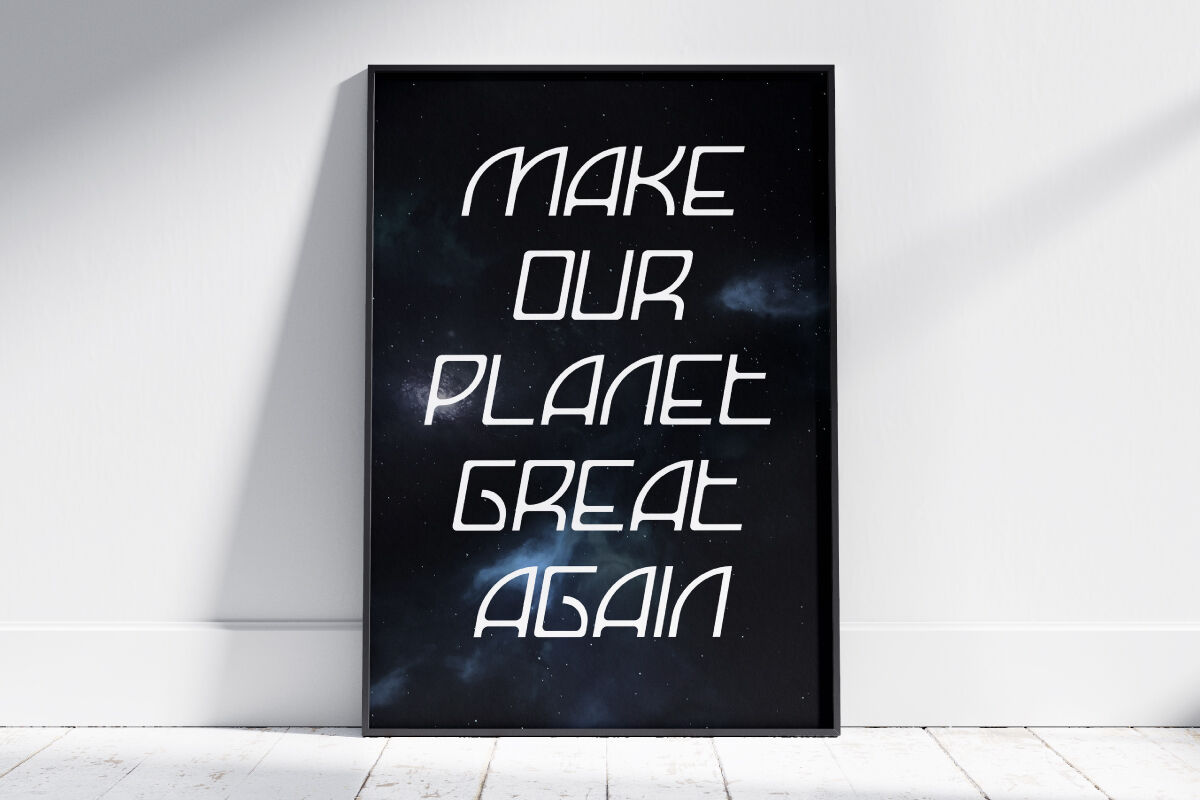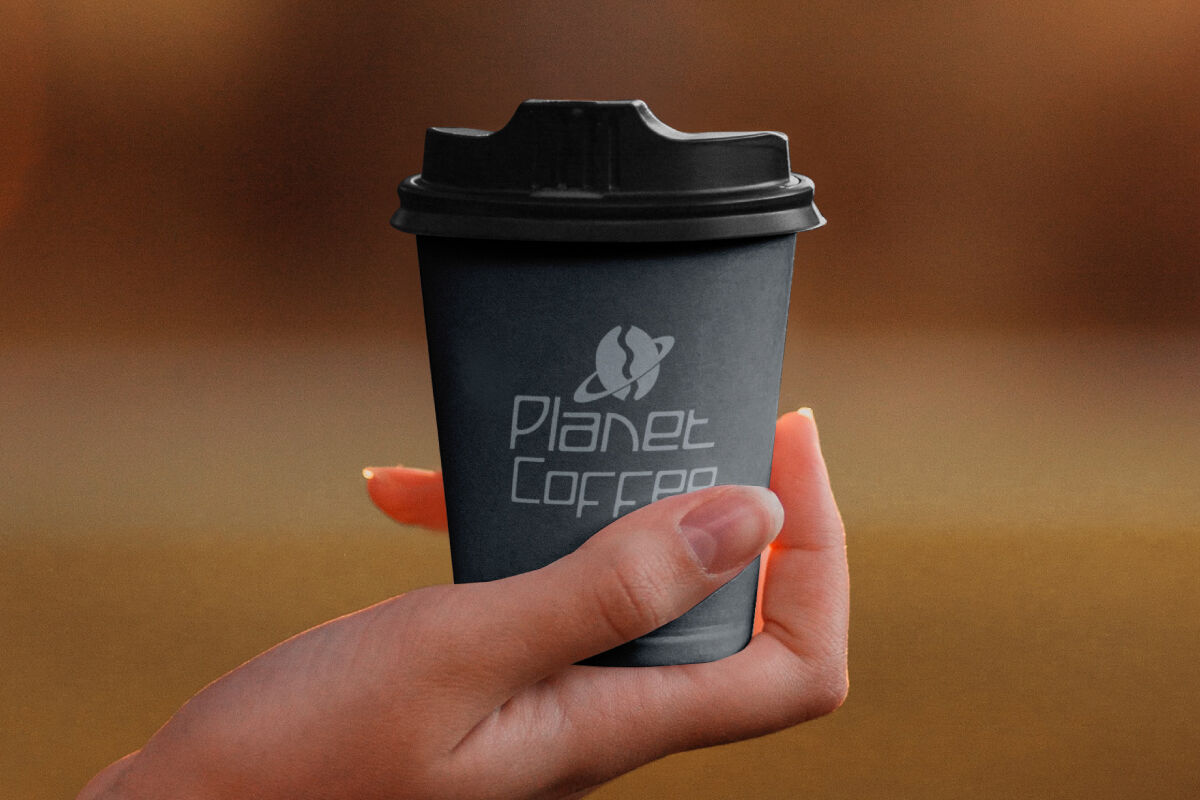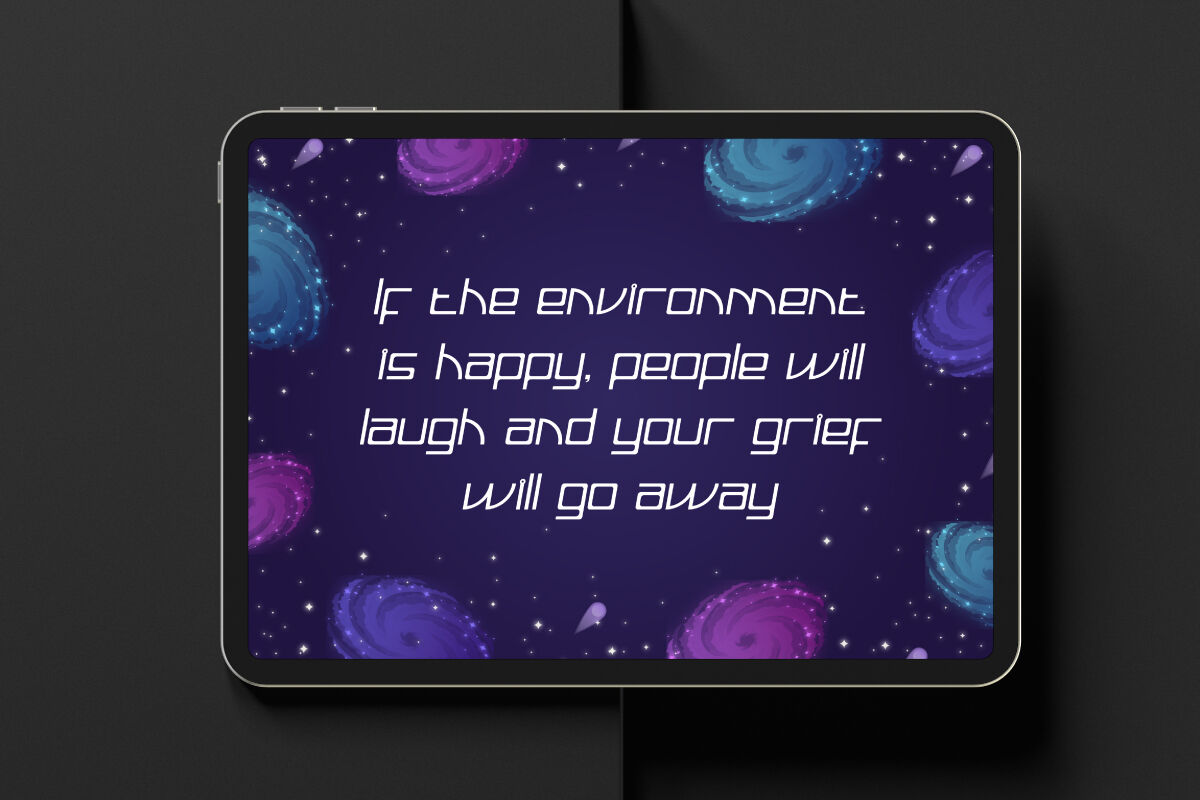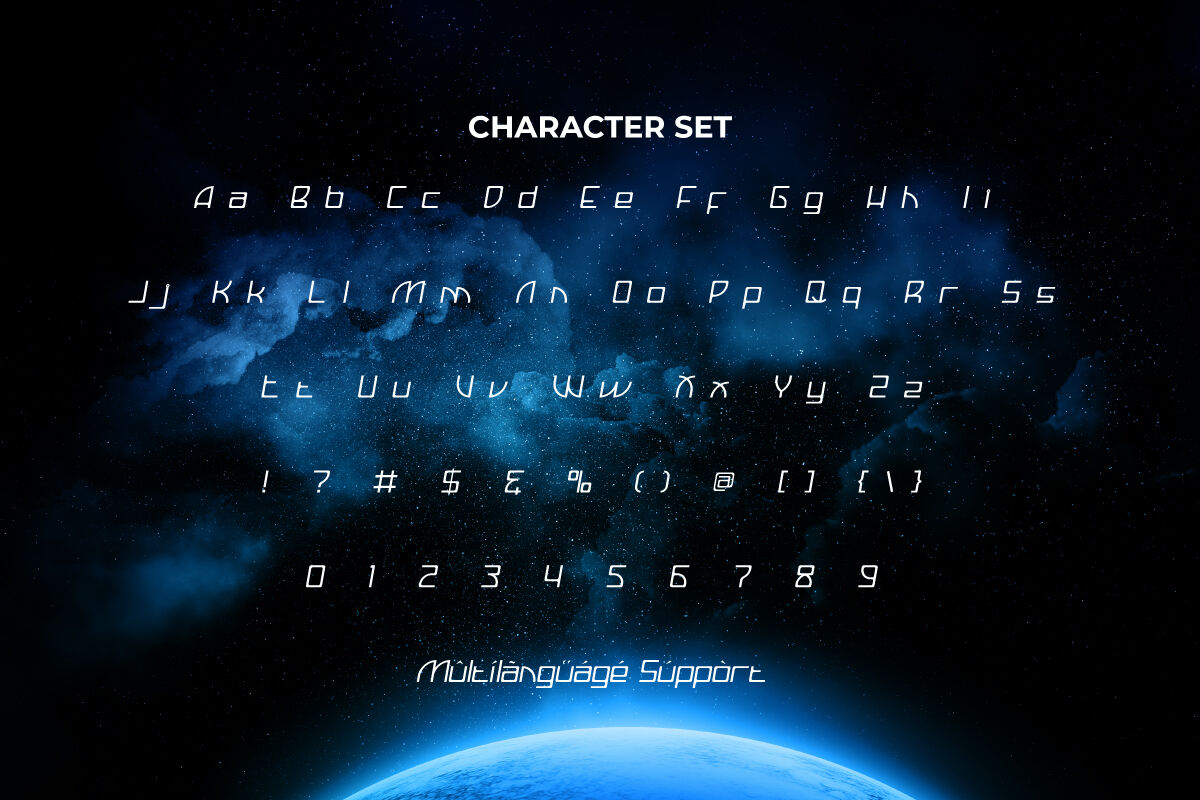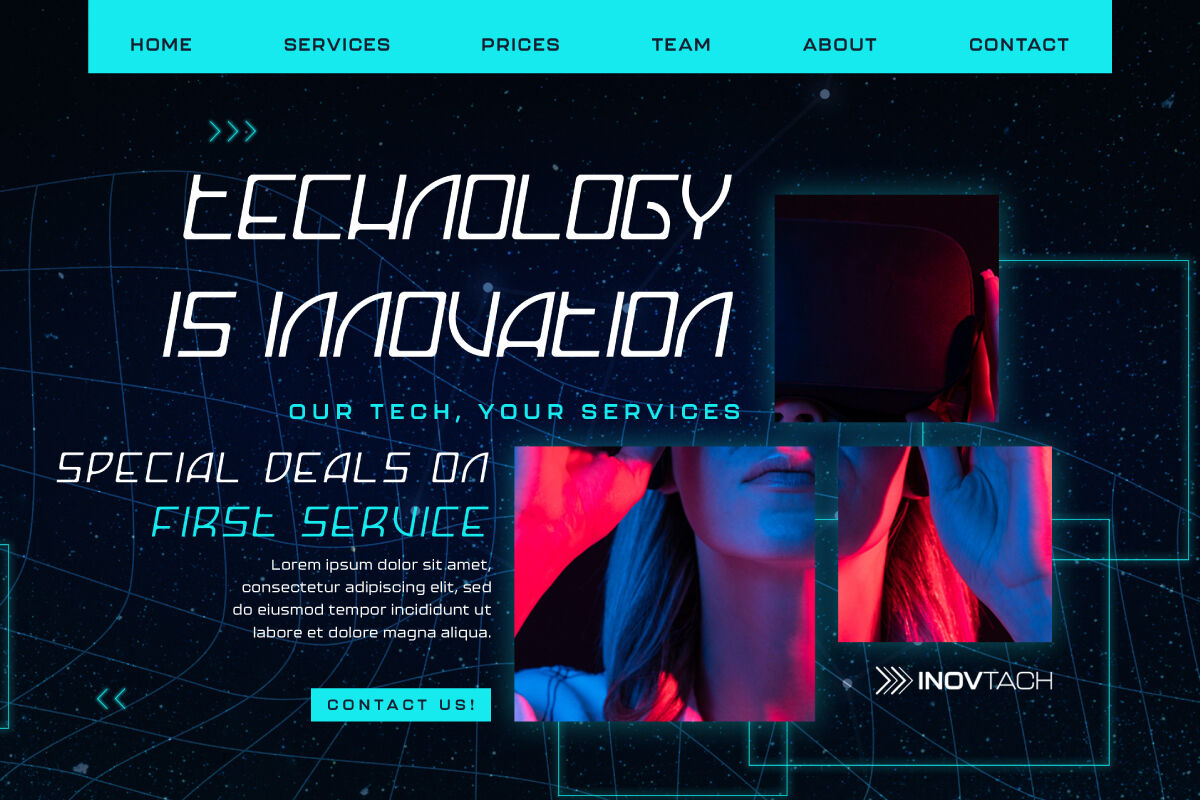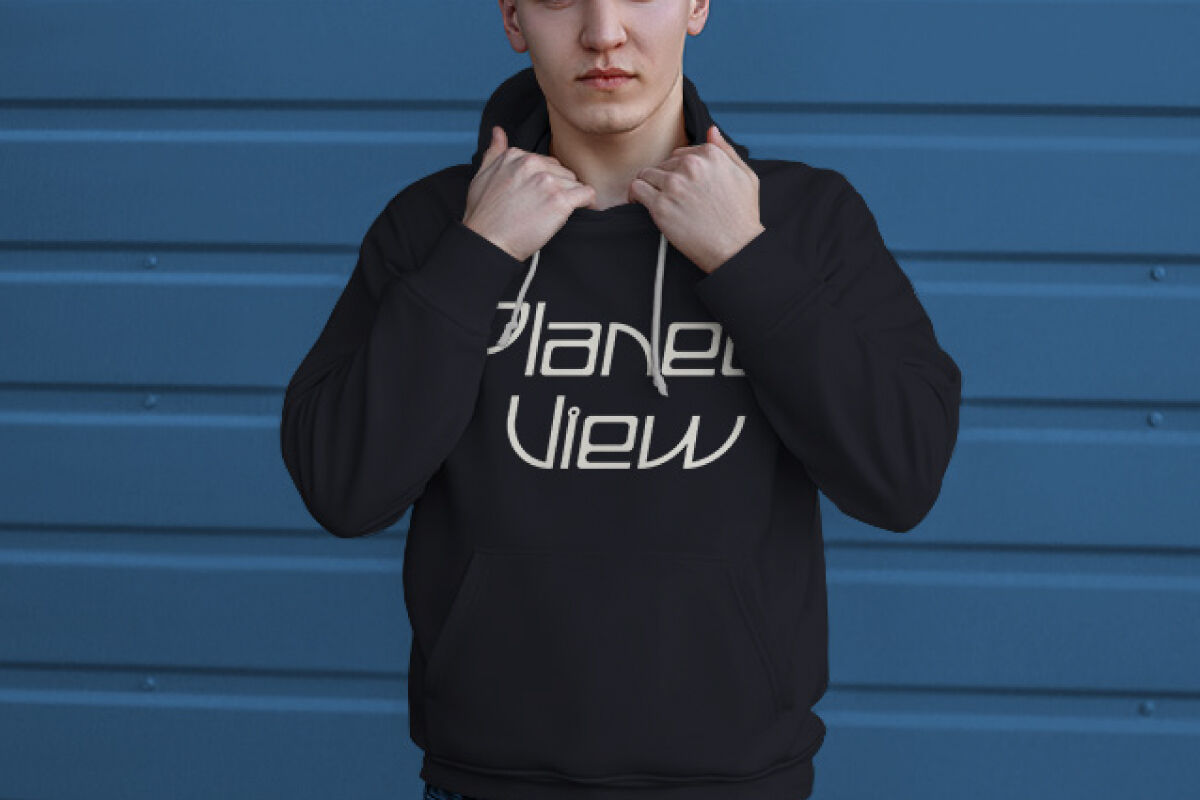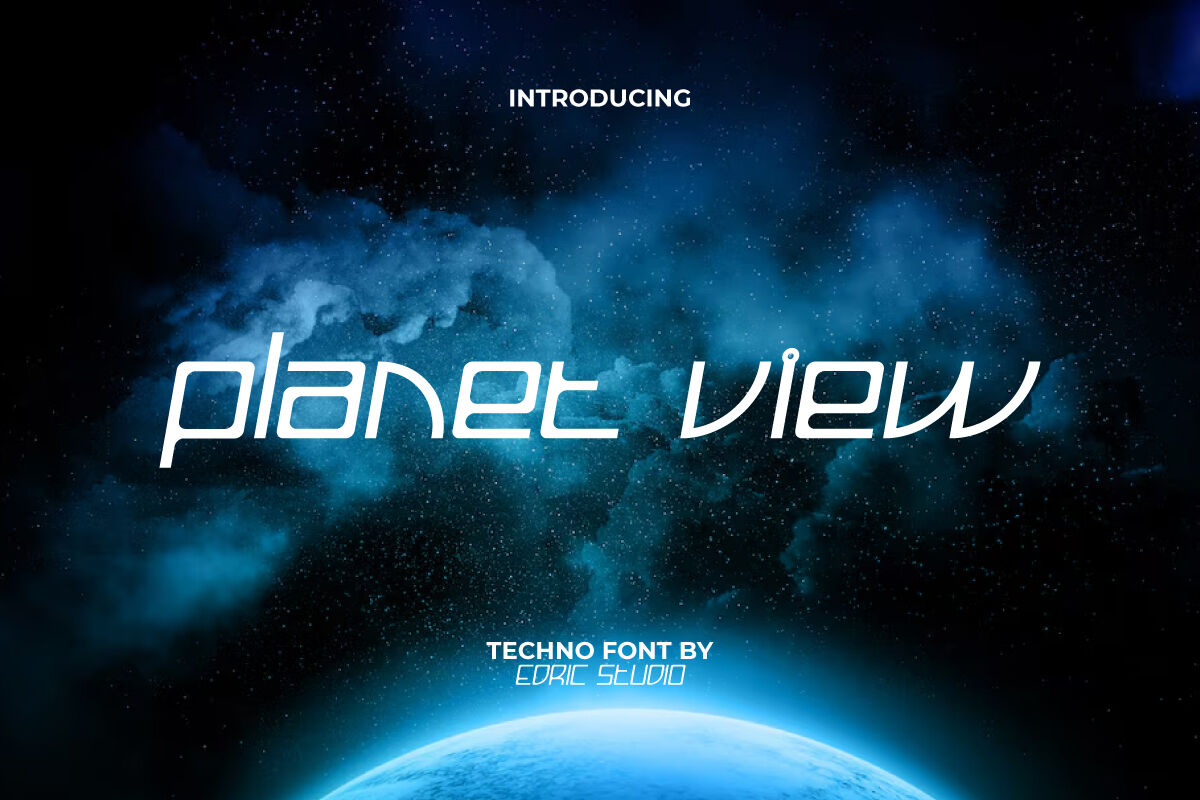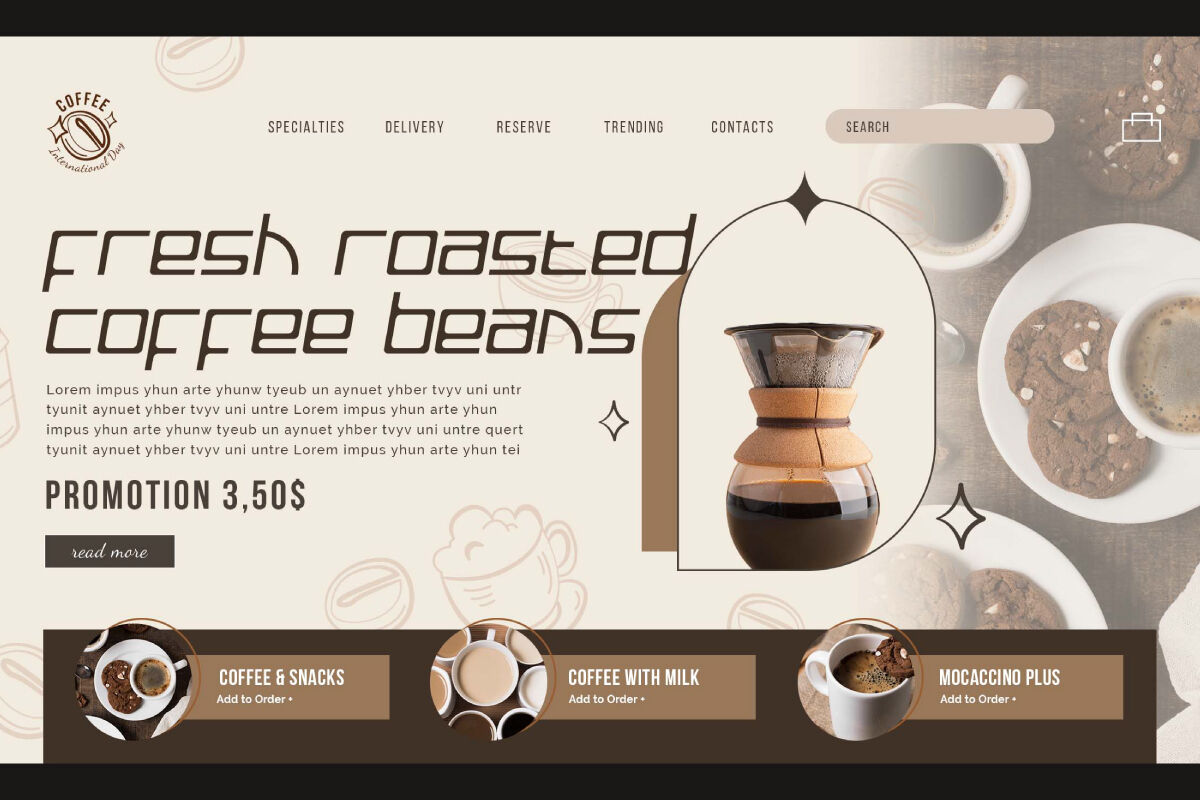
Planet View Modern Font is a futuristic display font that creates the atmosphere and style of advanced technology. Designed with sleek lines and a modern aesthetic, this font is perfect for projects that need a bold, futuristic vibe. This versatile font includes a full set of uppercase and lowercase letters, numbers, punctuation, and symbols, all carefully crafted to create clean, precise typography.
Planet View Modern Display Font includes a complete set of Uppercase and Lowercase Letters, Numbers, Punctuation, and Symbols. The letters are perfectly arranged neatly. In this era of modernity, techno typefaces really attract the interest of users.
Planet View Font a playful typeface with unique decoration in each character. Combine different characters for a bespoke, handcrafted feel. It’s tested to work well in the Adobe Apps (Illustrator, Adobe InDesign, Adobe Photoshop) even work on Microsoft Word. Thanks to PUA encoding, every glyph and alternate character is accessible for custom creative control.